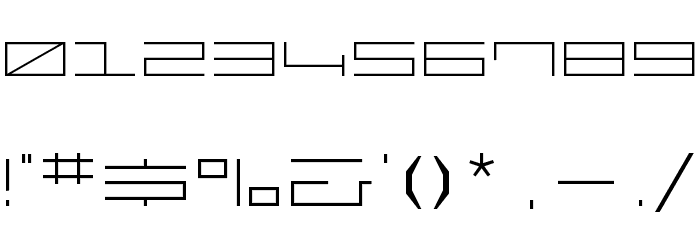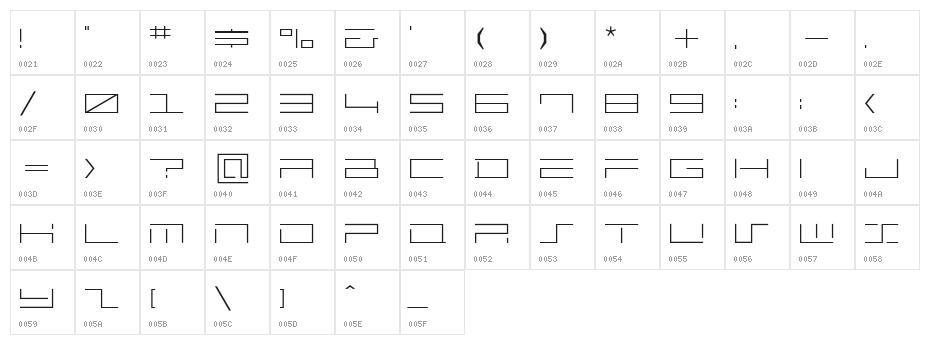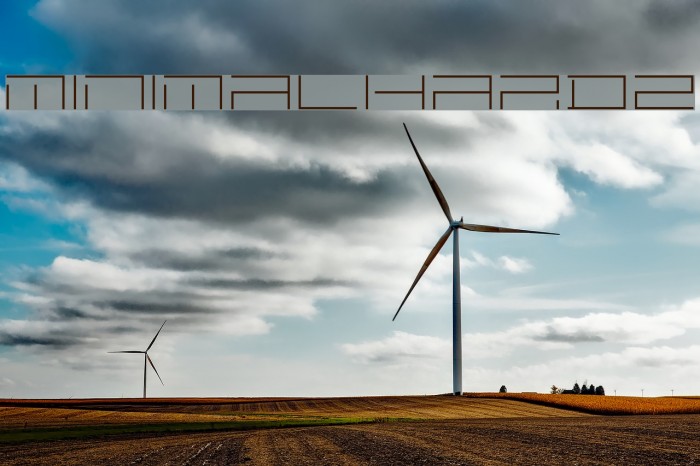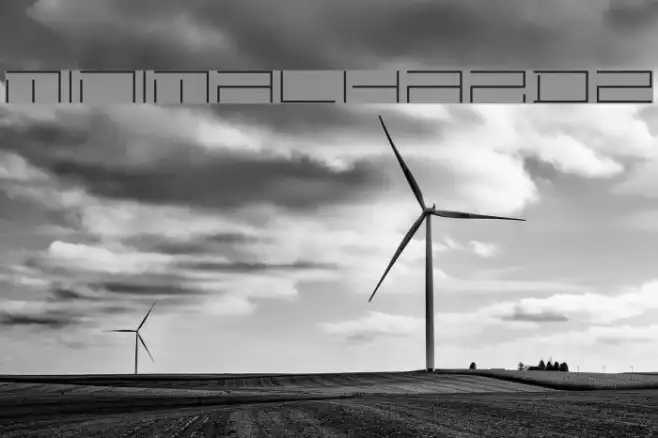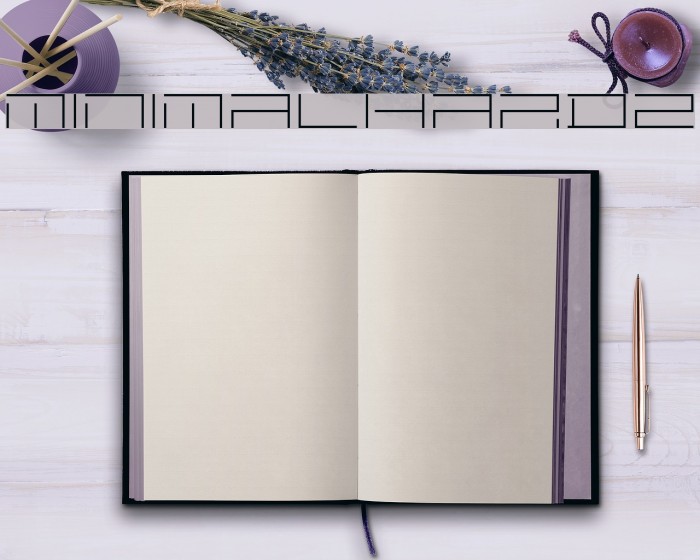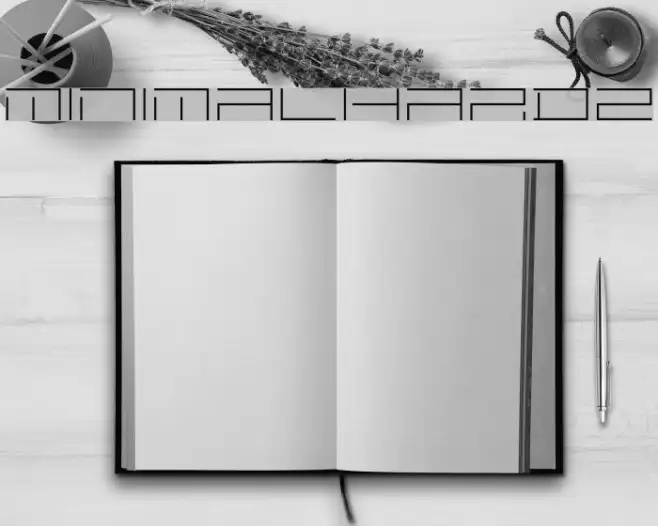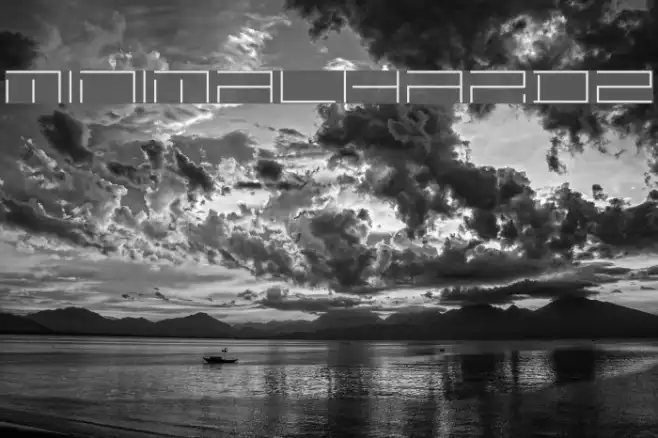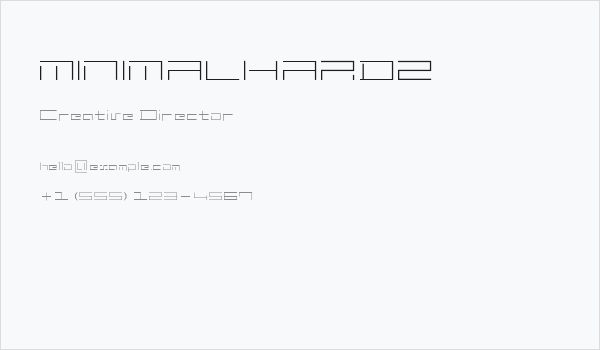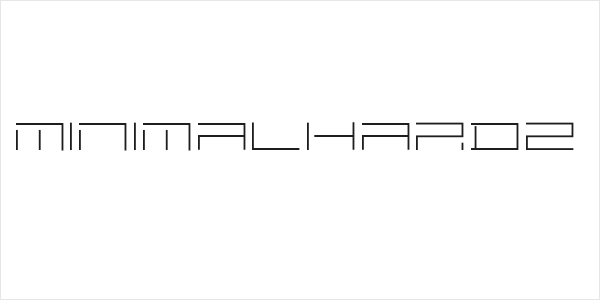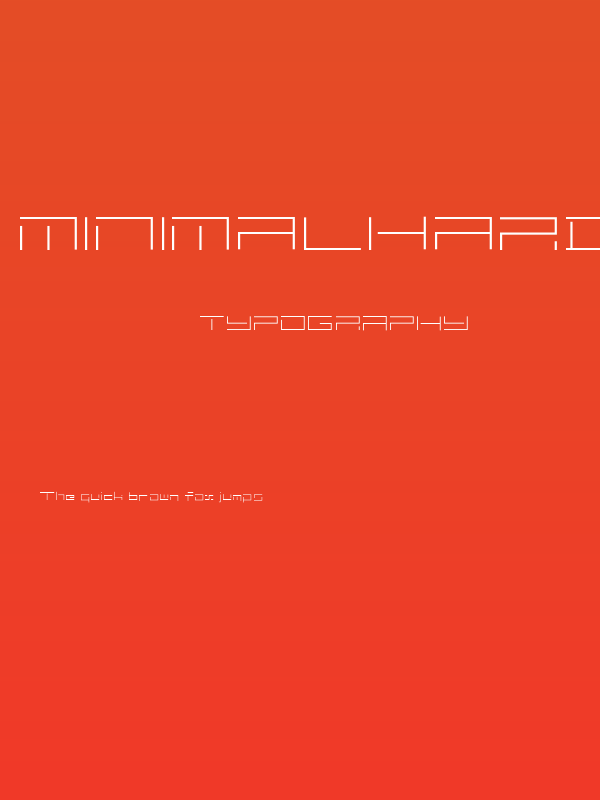
MINIMALHARD2 Font
MINIMALHARD2 Description
This font features a minimalist and geometric design, characterized by its linear and angular structure. Each character is constructed with straight lines and right angles, giving it a futuristic and technical appearance. The uppercase and lowercase letters maintain a consistent height, contributing to a uniform and orderly look. The numerals and special characters follow the same design principles, ensuring coherence across all elements. The font's simplicity and precision make it suitable for modern and digital-themed projects, where clarity and a sleek aesthetic are desired.
| Proposed Projects | Ideal for tech branding, digital interfaces, modern posters, and minimalist graphic designs. |